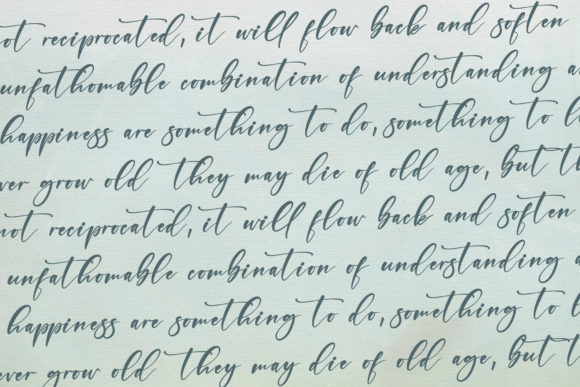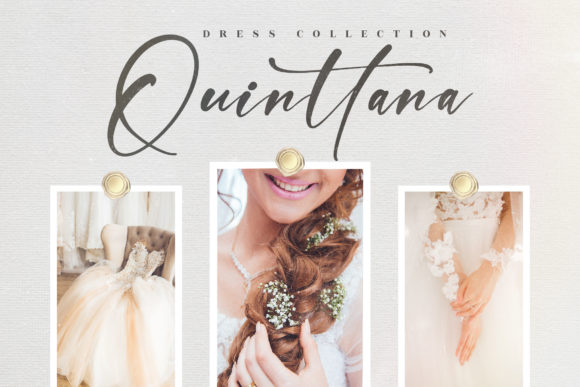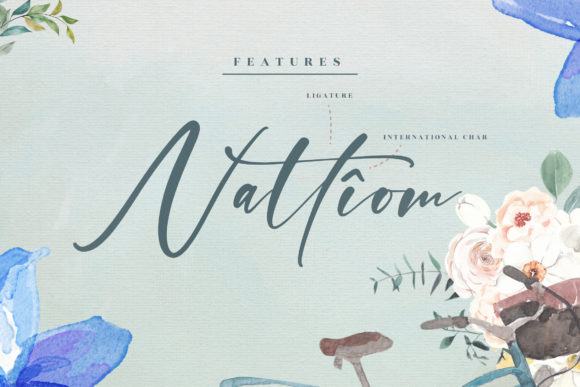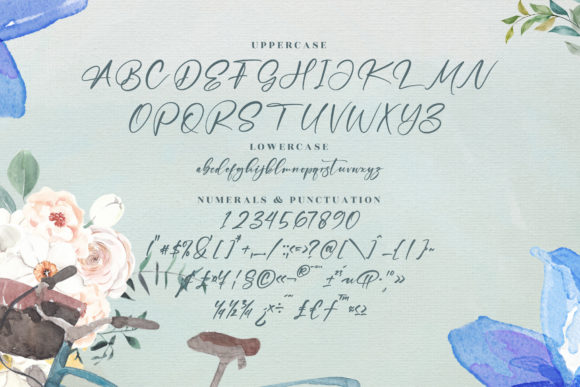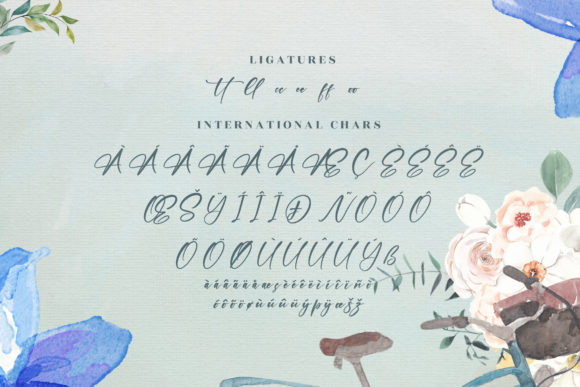
About Newlive Malldive Font
Newlive Malldive is a relaxed script font, with a gorgeous flow. It is suitable for any projects such as: logos, branding projects, homeware designs, product packaging, mugs, quotes, posters, shopping bags, t-shirts, and all your other lovely projects that need a beautiful taste.